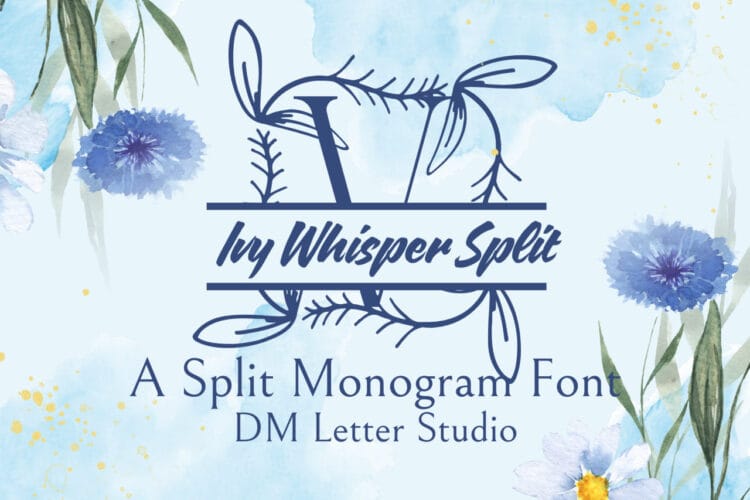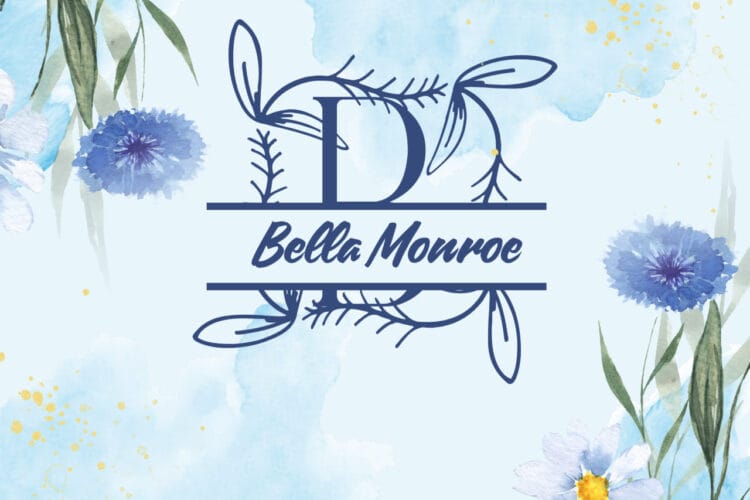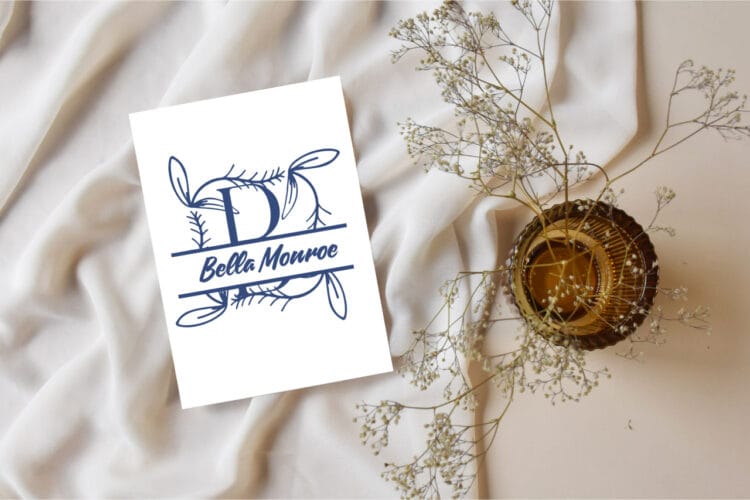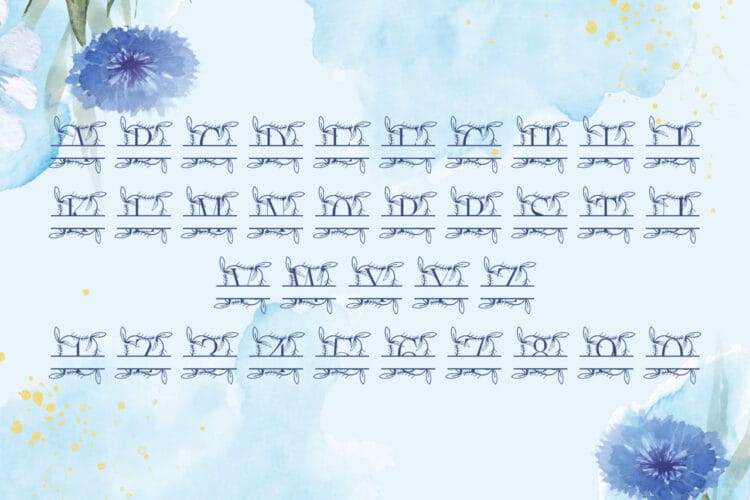
Meet Ivy Whisper Split Monogram, the Monogram Font
Ivy Whisper Split Monogram Font transforms initials into gentle, botanical emblems with a clear center split for names or dates. The ivy-inspired curves feel soft and organic. At the same time, the split structure adds order and balance. Because the letterforms are open and calm, the font stays readable at small sizes. Meanwhile, it looks graceful and detailed on larger prints. As a result, Ivy Whisper Split Monogram is ideal for weddings, botanical branding, stationery, and meaningful keepsake designs.
Where this split monogram font shines
Use single, double, or triple initials for logos, invitations, menus, place cards, and seals. In the center split, you can add surnames, wedding dates, or short messages. Because the flowing ivy shapes guide the eye naturally, layouts feel relaxed and elegant. At the same time, the split line keeps information clear. For example, you can place the monogram inside circles, wreaths, arches, or vine-style frames. In addition, Ivy Whisper Split Monogram keeps a cohesive look across invitations, labels, boxes, ribbons, and gift tags. Whether printed small or displayed large, it scales smoothly and remains refined.
Design tips for Ivy Whisper Split Monogram
Keep initials generous and leave enough space around the center split. This ensures names and dates stay easy to read. Pair the monogram with a classic serif or a clean sans serif for supporting text. Also, textured paper, vellum wraps, and soft metallic foils enhance the botanical mood. Because the design already feels delicate, keep wording short. That way, the monogram remains the main focus on seals, favors, and small packaging.
Center split feature for names or dates
Botanical-inspired monogram letterforms
Select stylistic alternates for key letters
Curves optimized for foil, letterpress, engraving, laser cutting, and clean vinyl paths
Why creators choose this split monogram font
You want a monogram that feels soft, natural, and personal. At the same time, you need clarity and flexibility across many uses. That is why Ivy Whisper Split Monogram Font stands out. It blends botanical flow with a practical split layout. In the end, your designs feel calm, polished, and timeless.